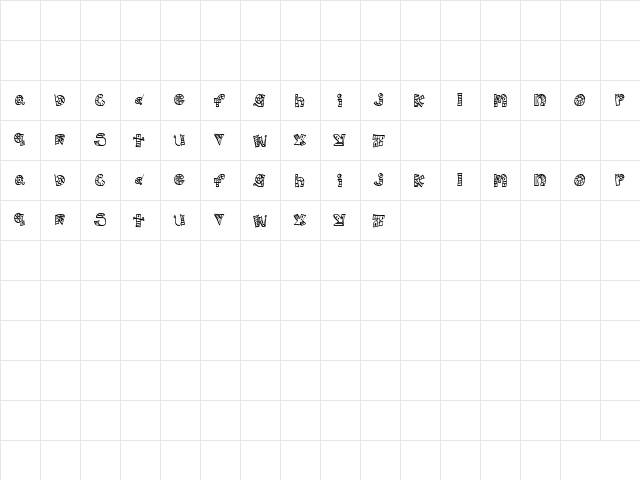
MTF Scribblie Regular
| Designer | Tiina Raparanta |
Design Context for MTF Scribblie Typeface
MTF Scribblie is a composed and adaptable typeface that performs quietly and consistently across a wide range of design contexts.